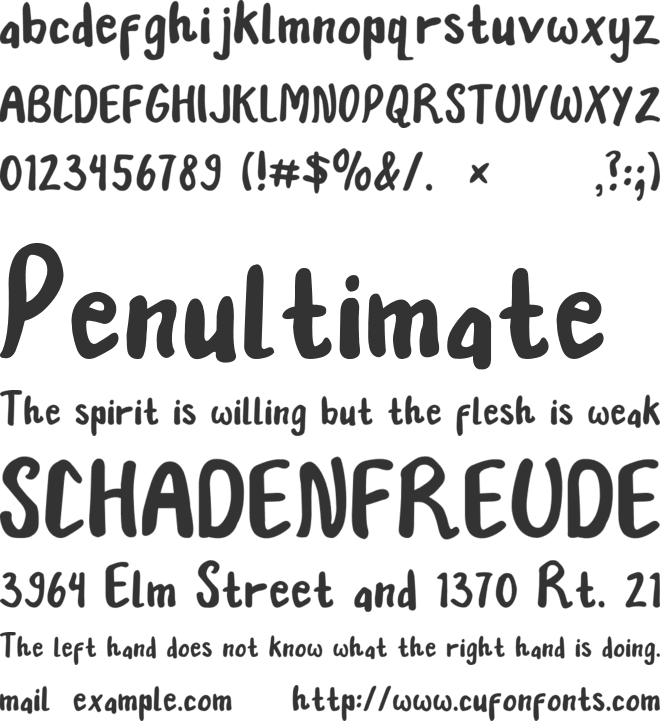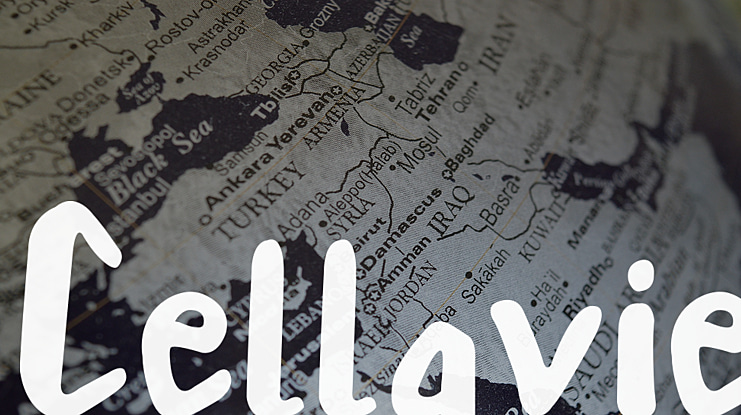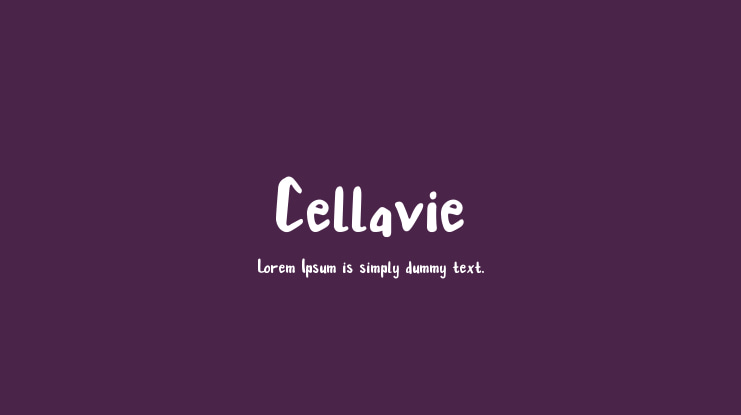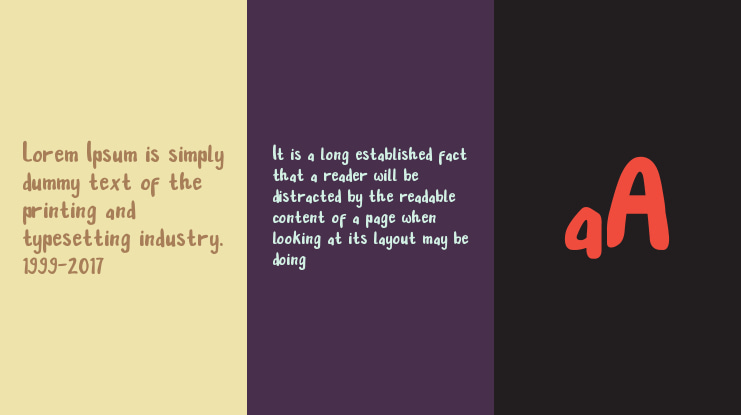
Cellavie Font
Cellavie is a Display Font that has Natural feels and friendly, it suits for any of your commercial projects logo, wedding designs, social media posts, advertisements, product packaging, product designs, label, photography, watermark, invitation, stationery and any projects that need childhood, adventure, playful & nature Taste.